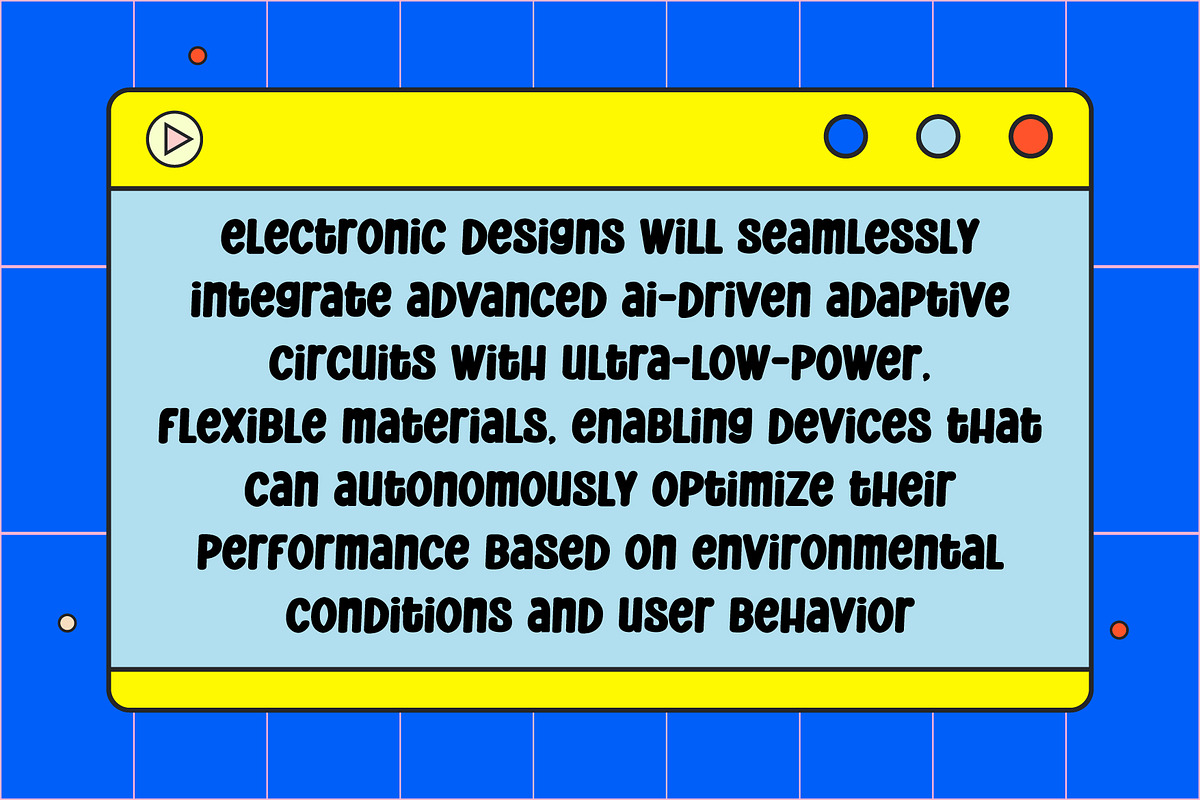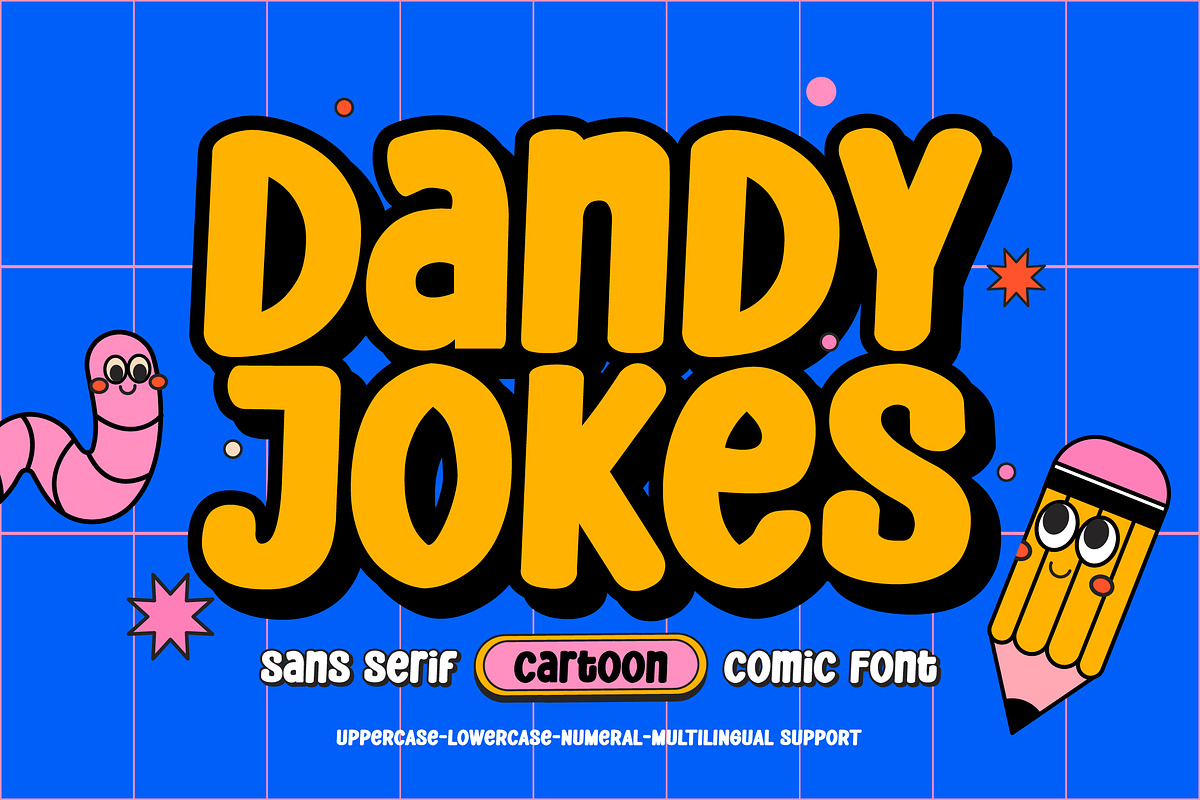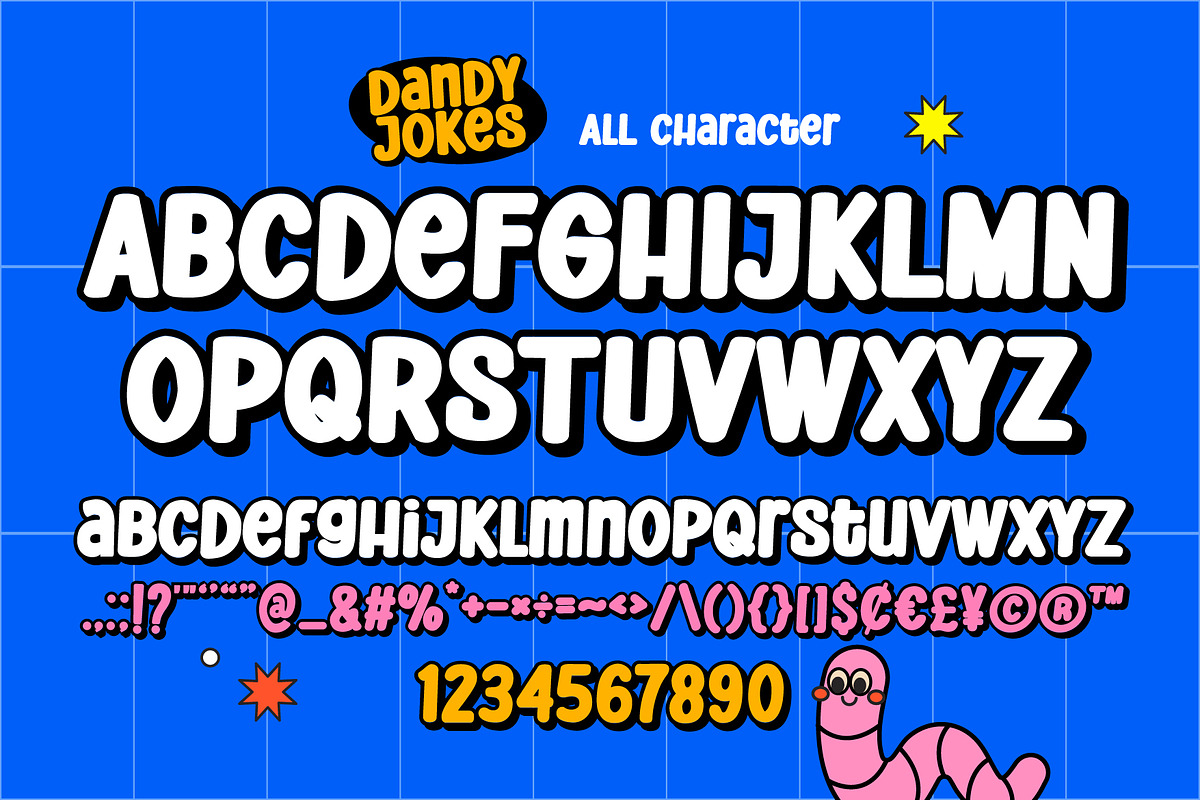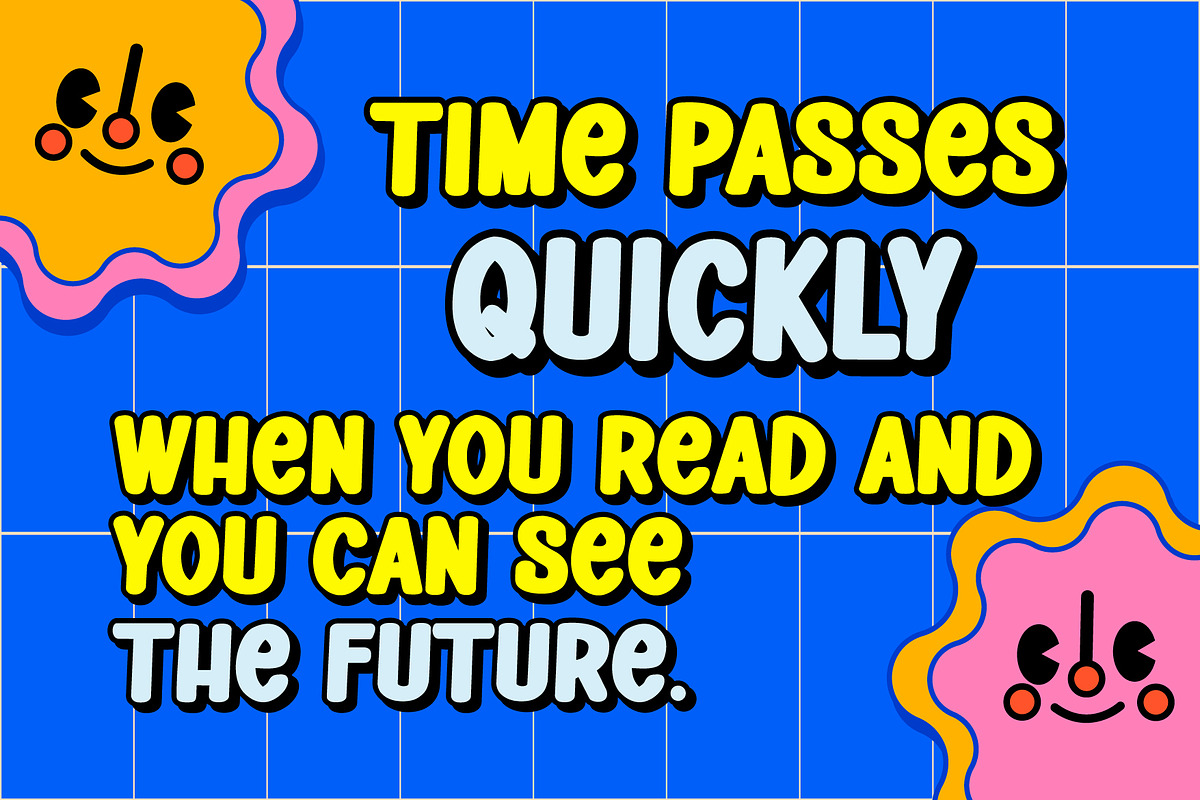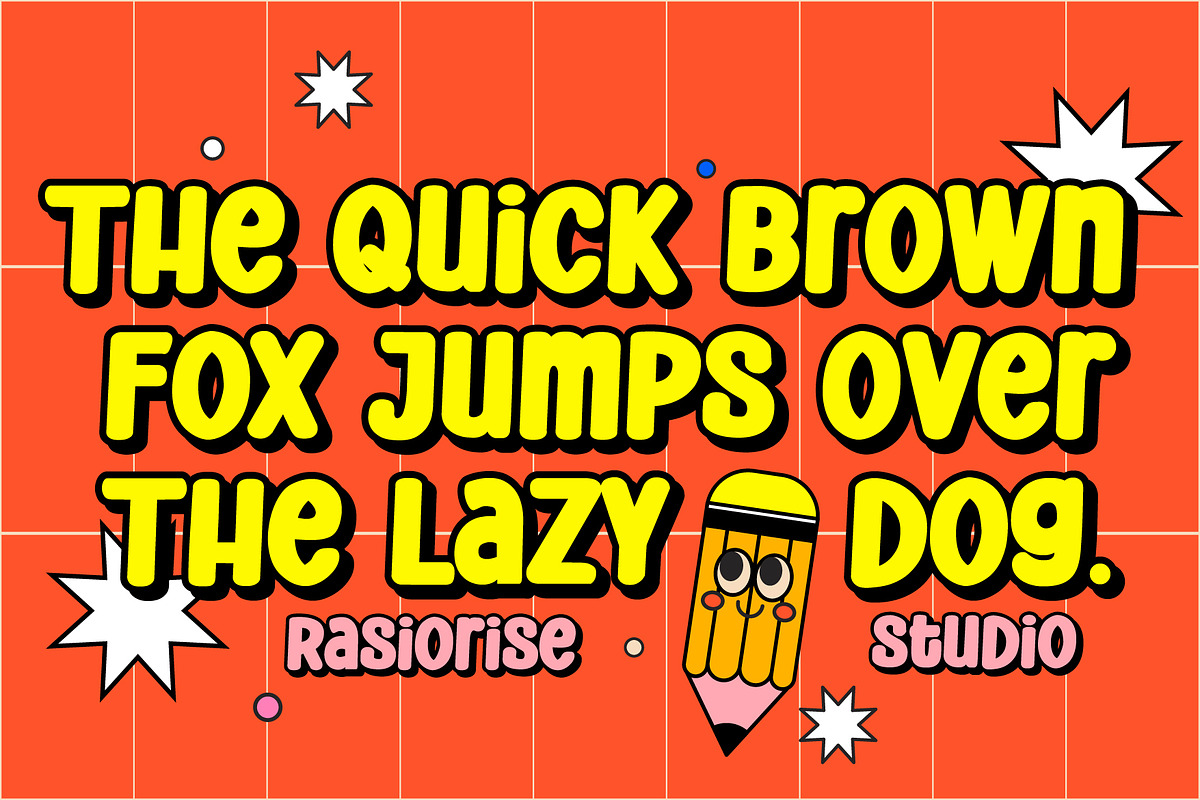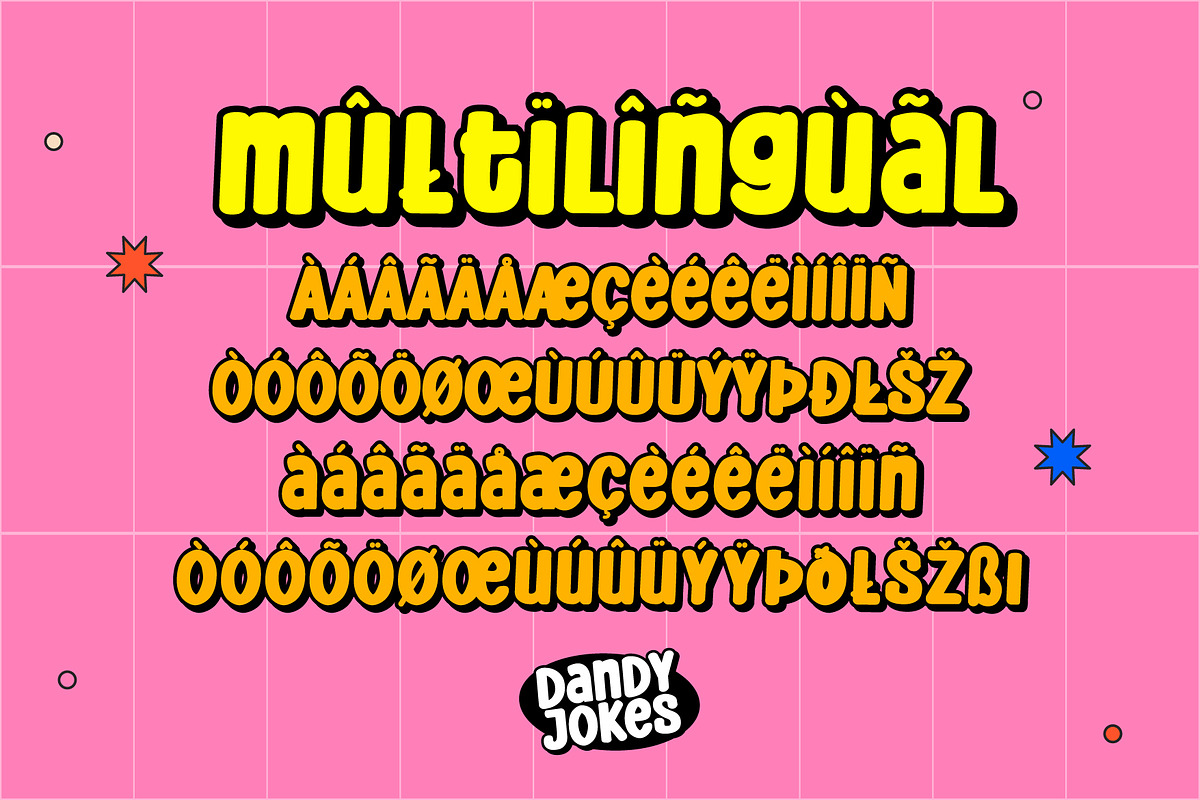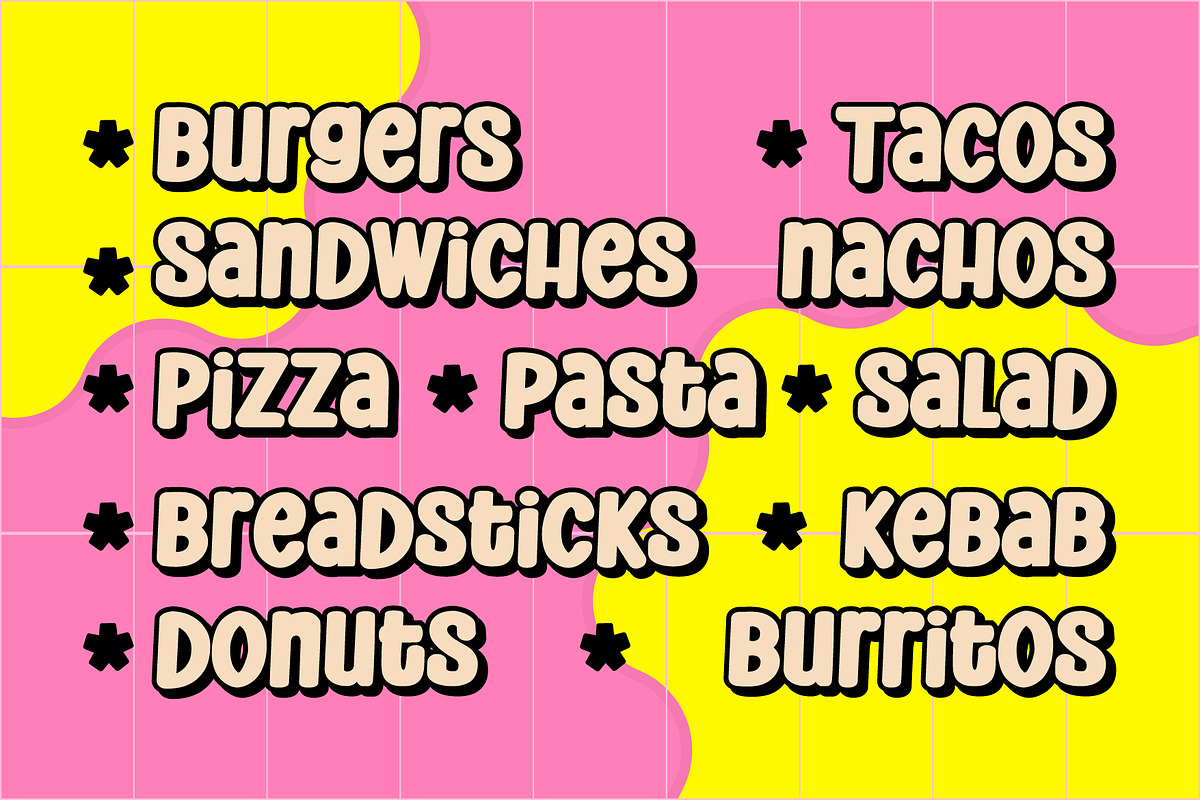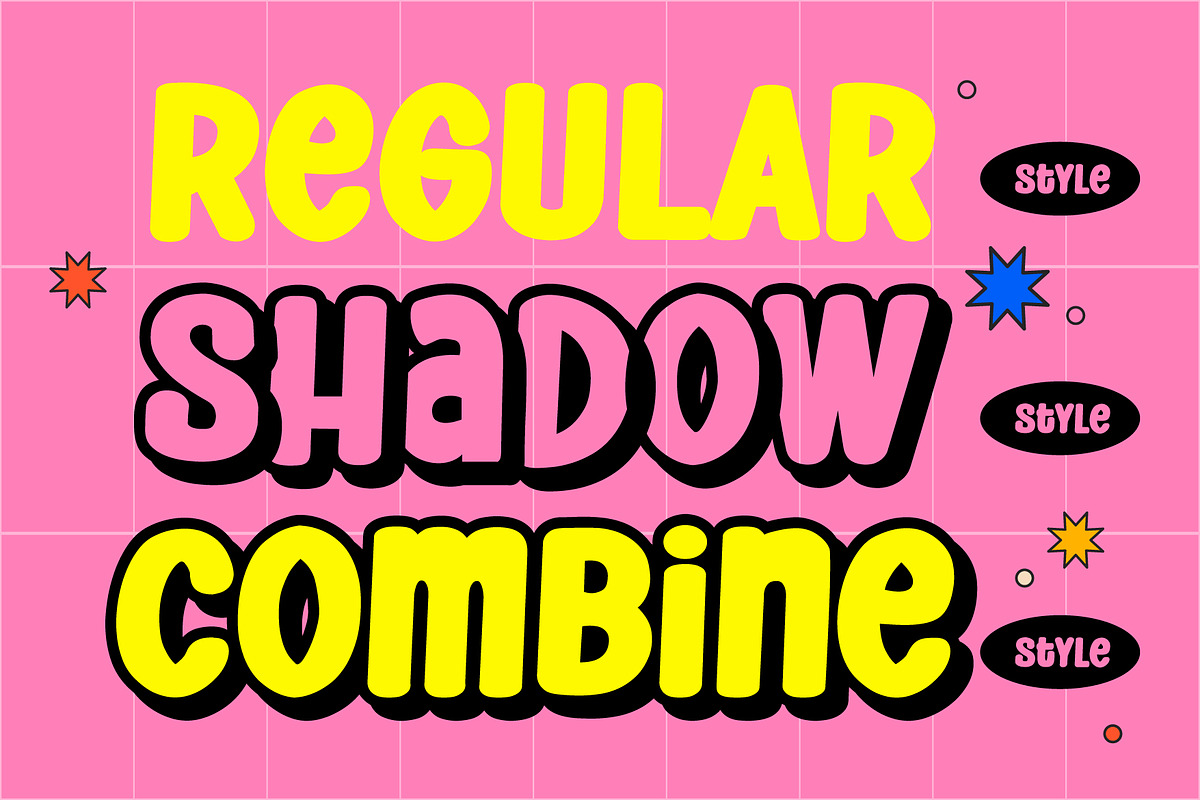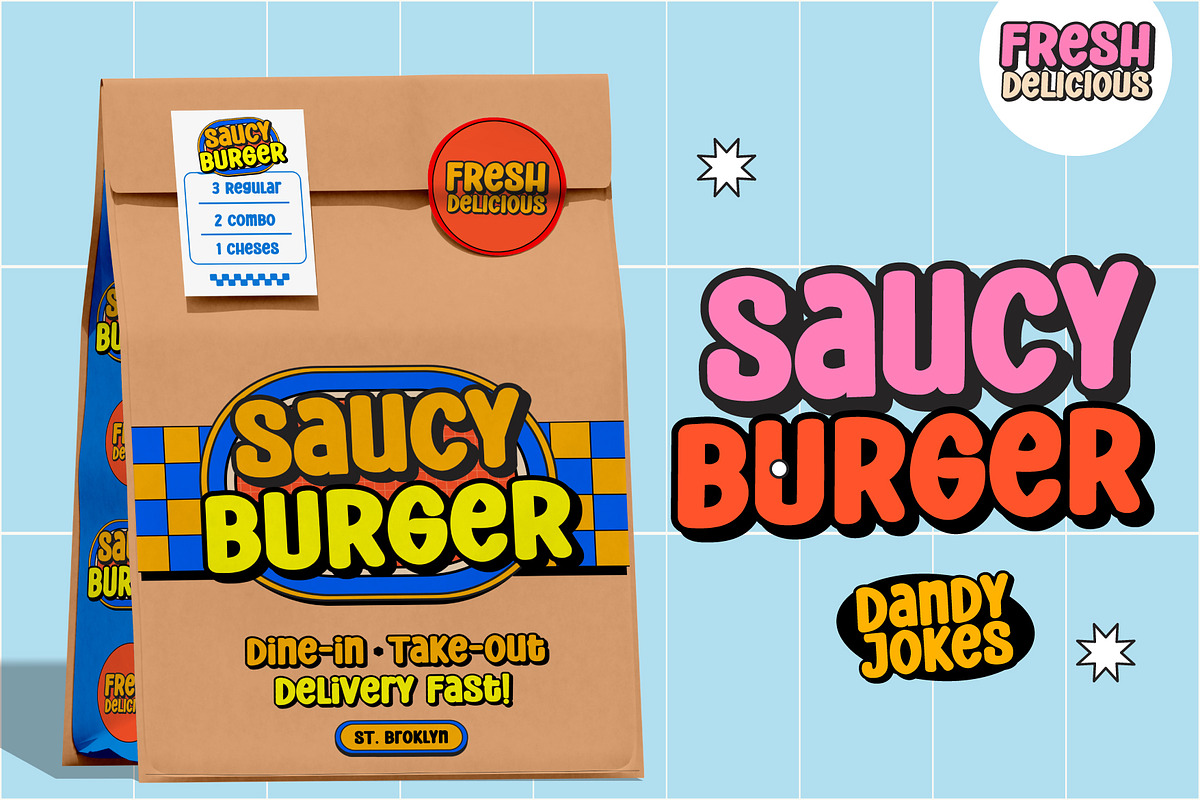
Dandy Jokes a Cartoon Comic Font
Hello Everyone! Dandy Jokes has been released for those of you who are looking for a Retro Hipster Font. A Retro Cursive Font that combines the Sans Serif Hipster and Bold typeface. This font is inspired by the 60s, 70s and 80s Retro Cartoon movie/ Super Hero style, a Sans Serif font with several combinations to combine Pop and modern Hipster styles like a Retro Cartoon Comis. With easy-to-read character font for your Retro Cartoon vibes, also you can easily create beautiful and stand-out typography and retro. Unleash your creativity with Dandy Jokes Font and let your retro cartoon comic projects!.
Dandy Jokes is perfect for Logotype, Book Cover, Gift Cards, Greeting Cards, Posters, Merchandise, Packaging Labels, and more.